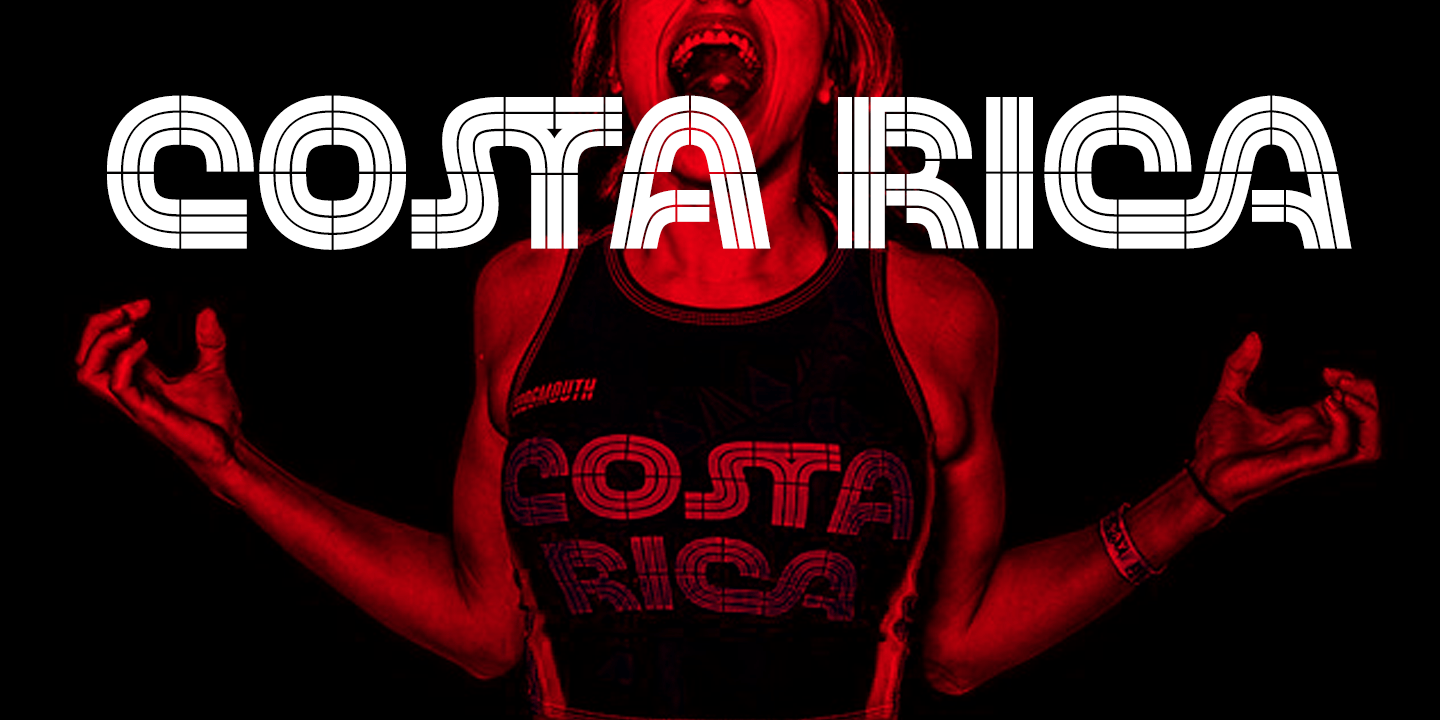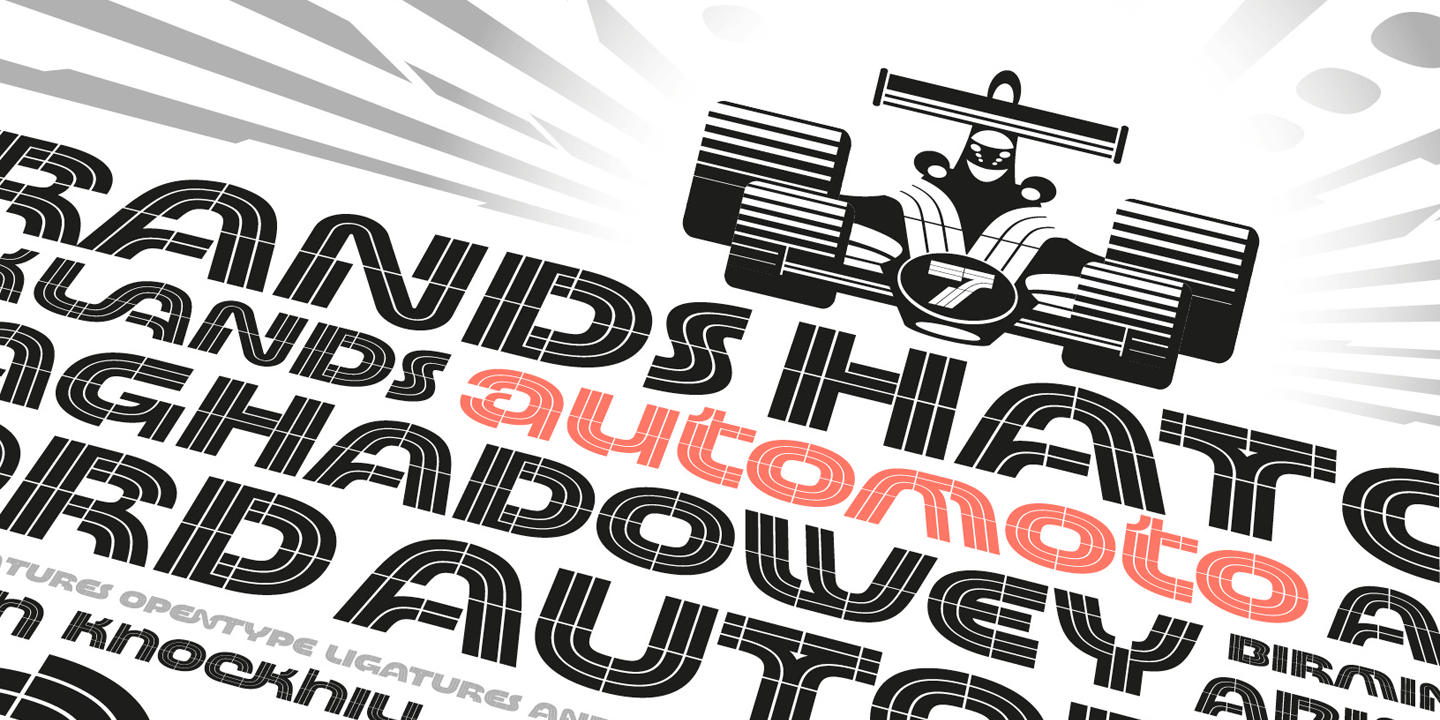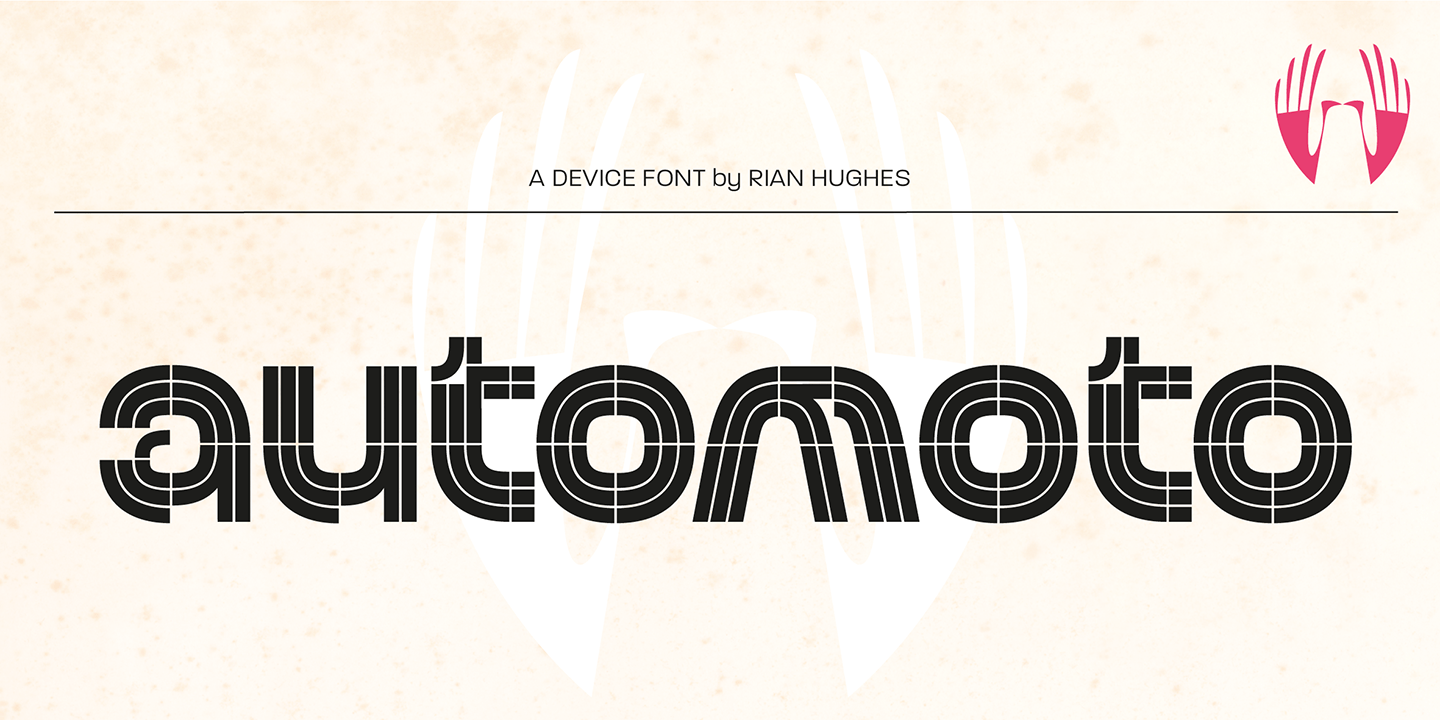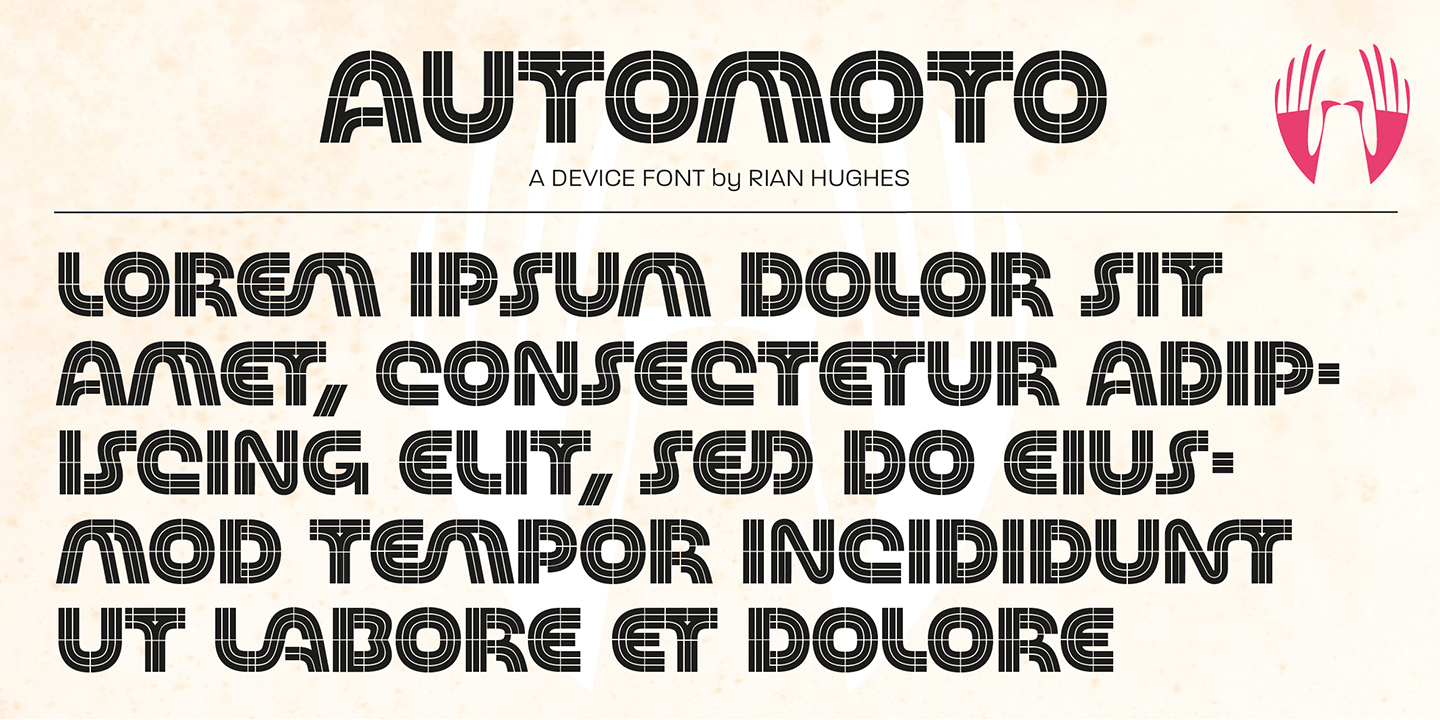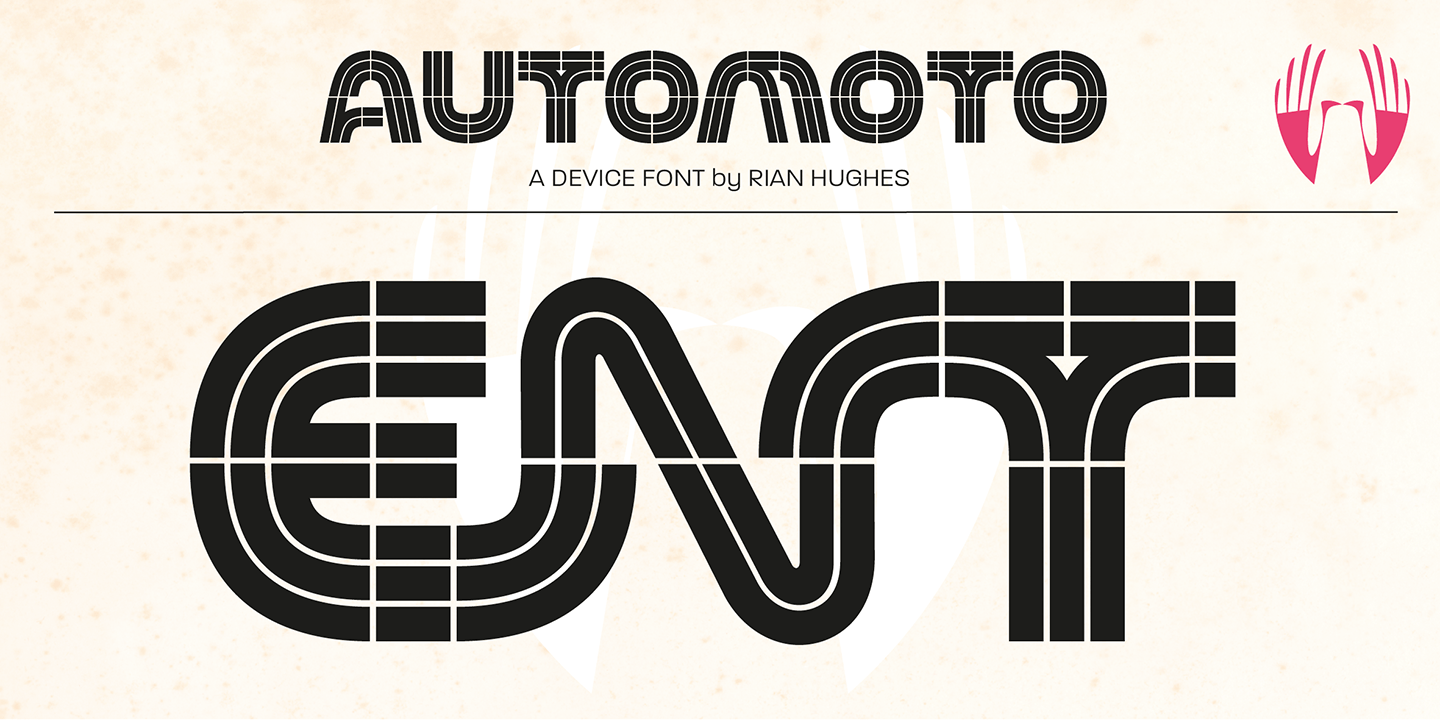
Automoto
Font Family by Device Fonts
Automoto is built from a limited number of curved
and straight segments that have been flipped and
rotated. It has an extensive set of two- and three-letter
ligatures that form a triple ribbon resembling a model
car racetrack.
For clarity, some character combinations
were excluded as they proved to be ambiguous in
context. The upper- and lowercase
characters can be freely intermixed according to taste.